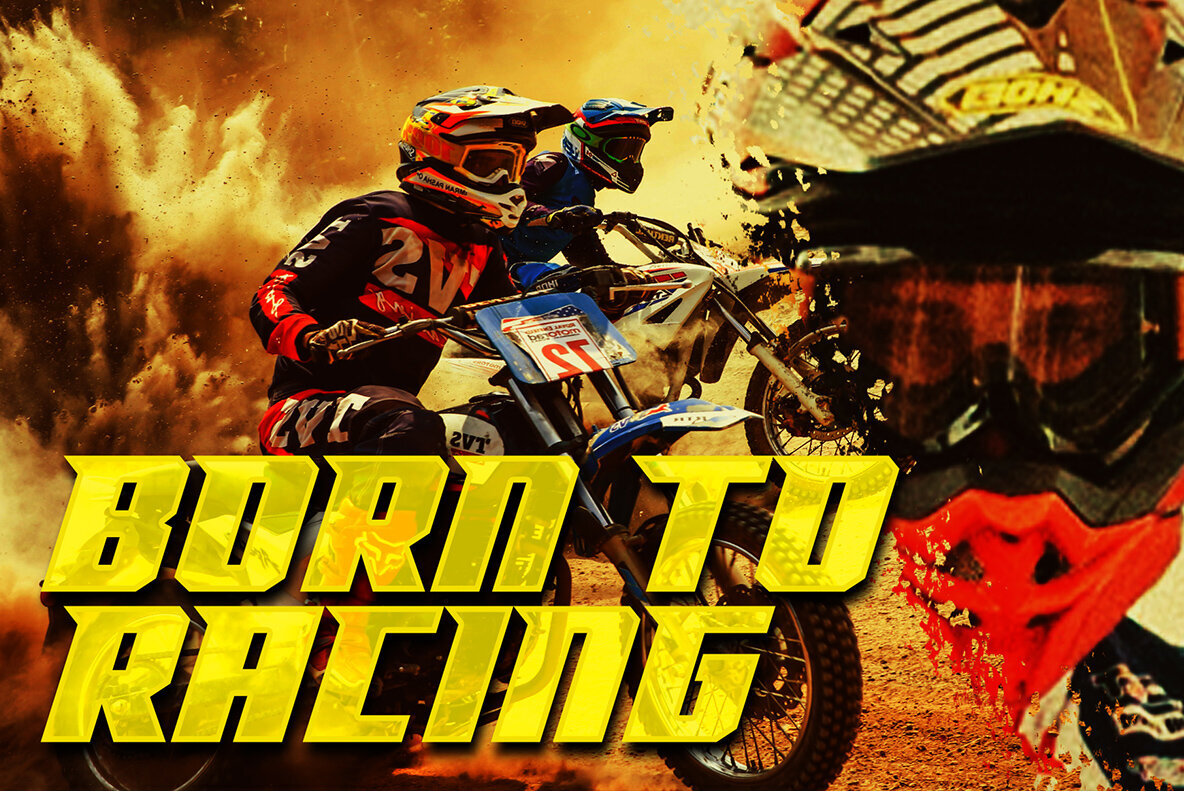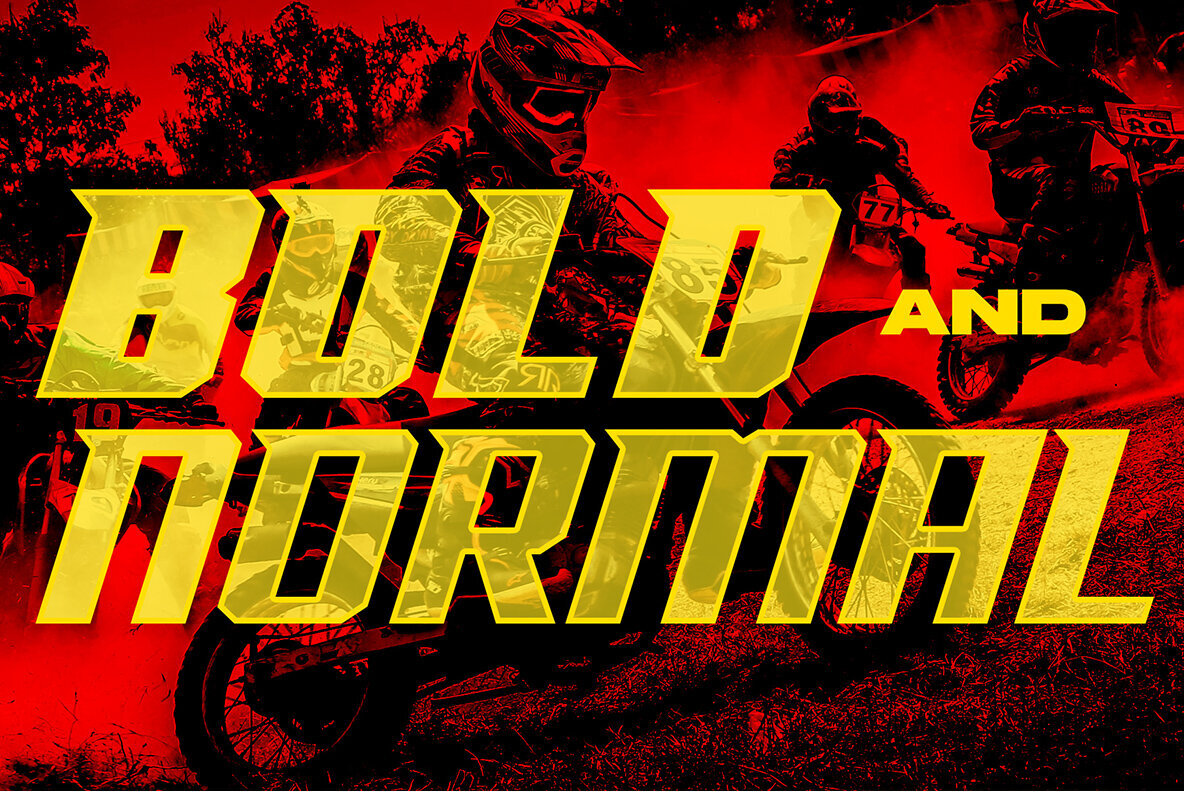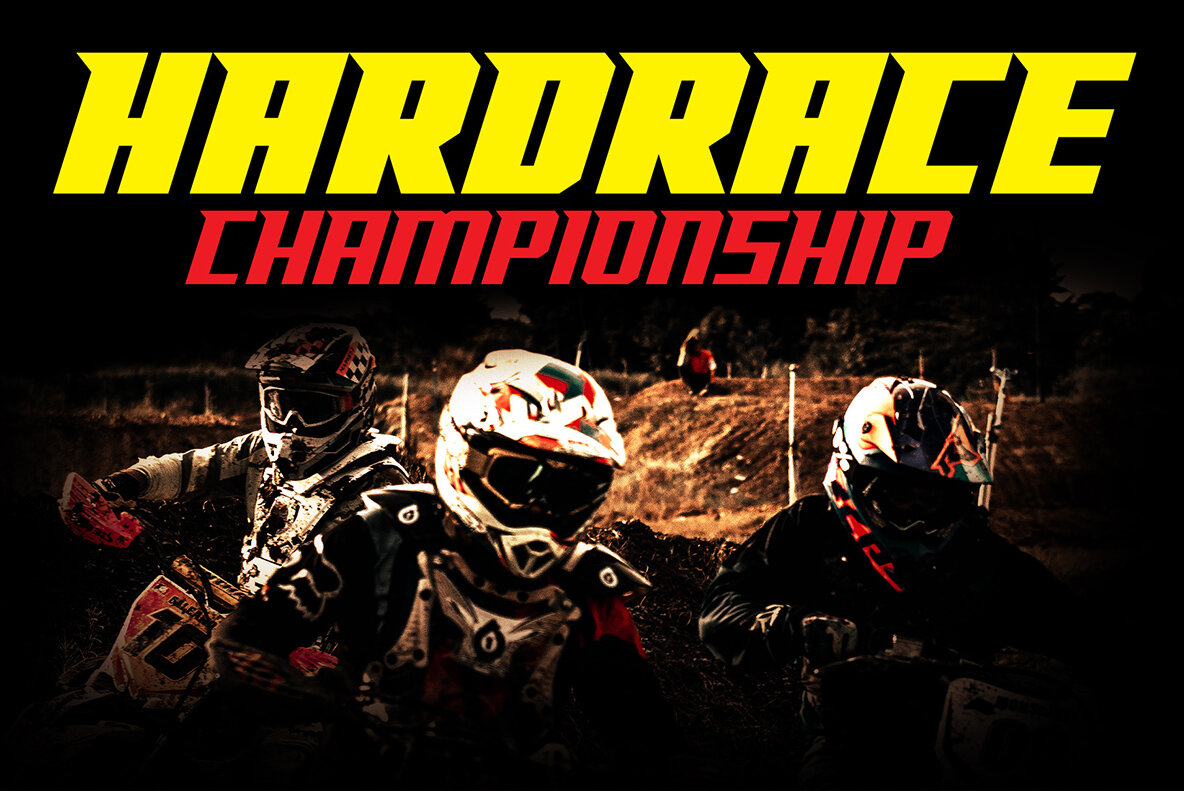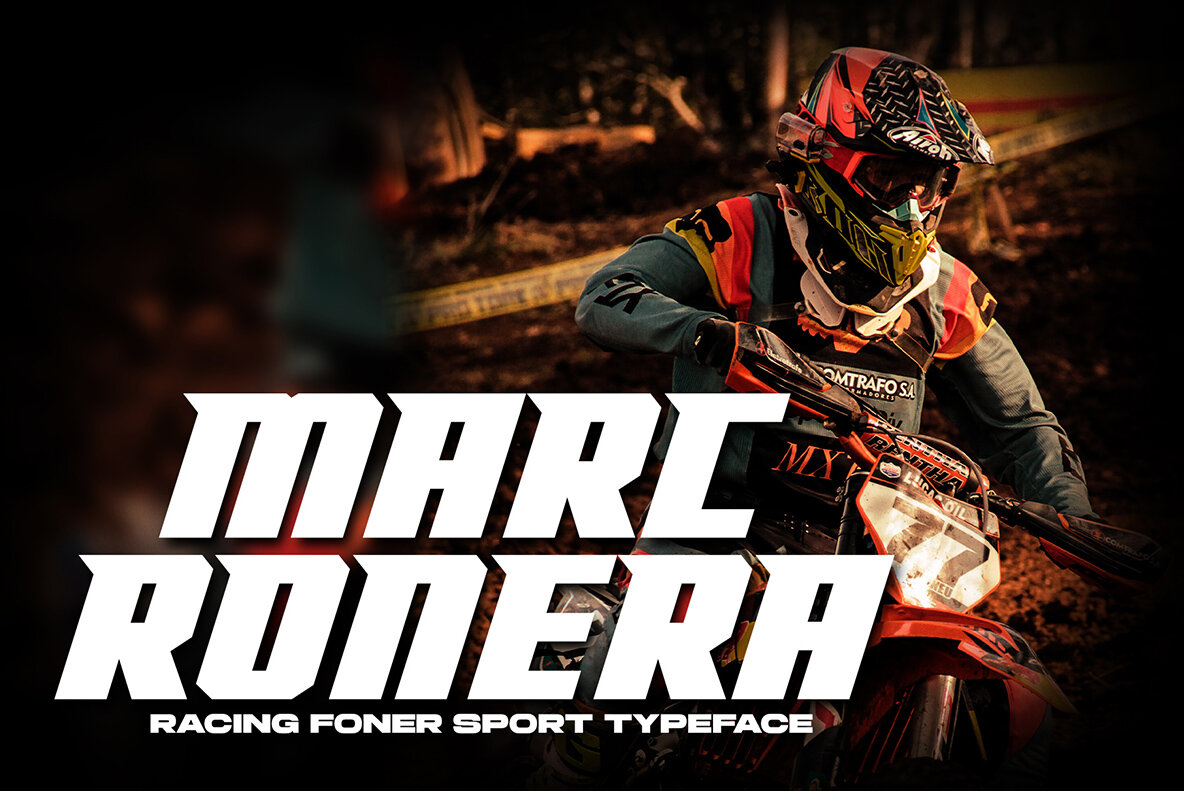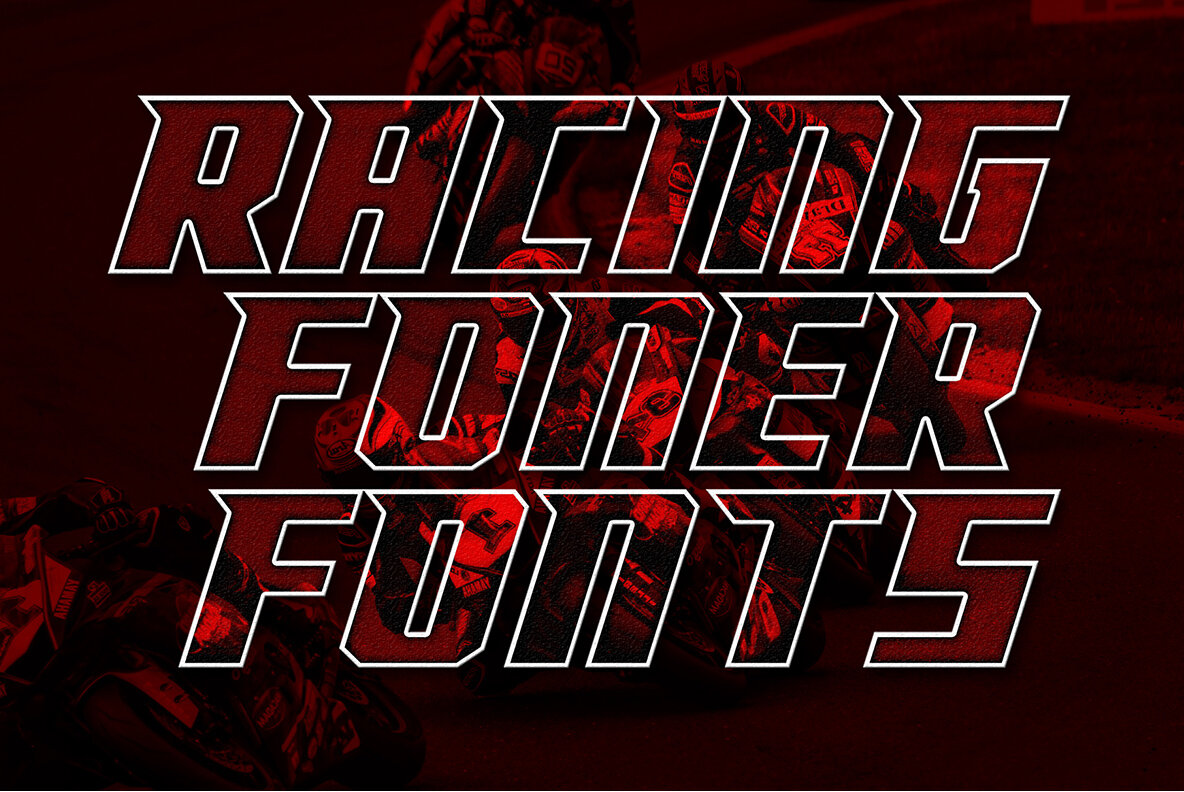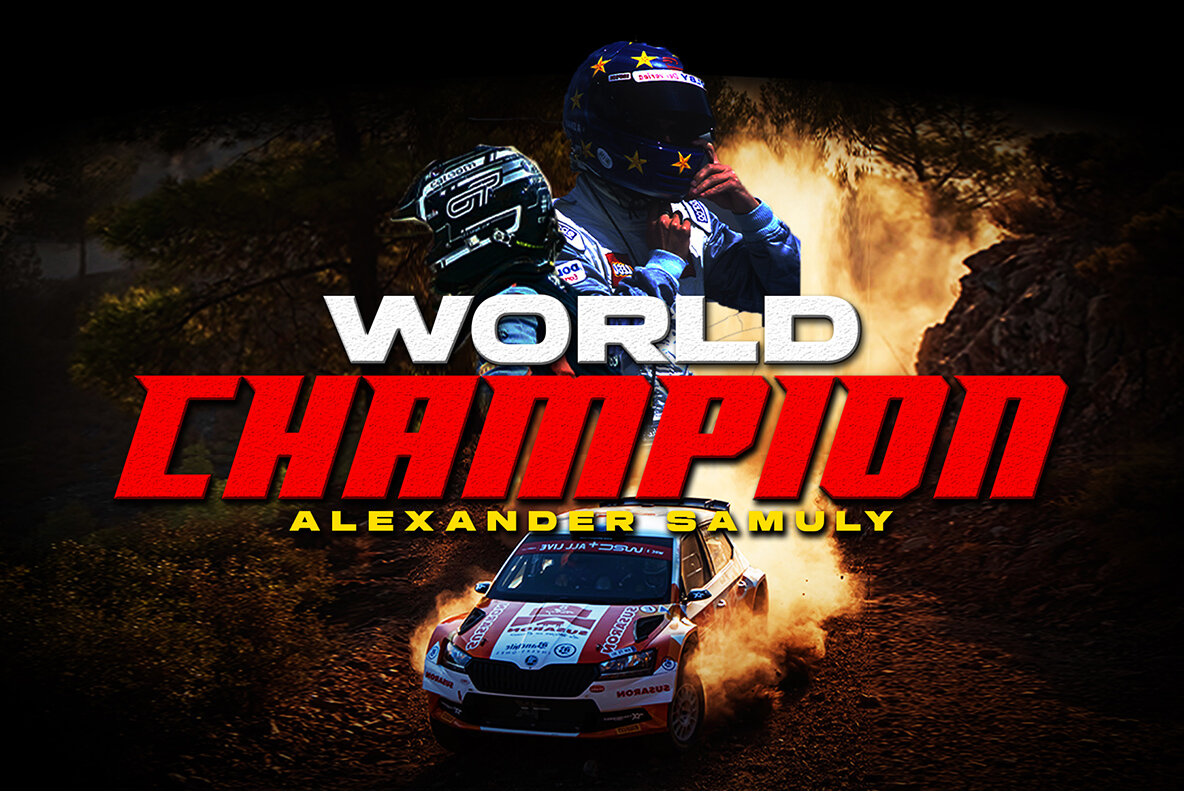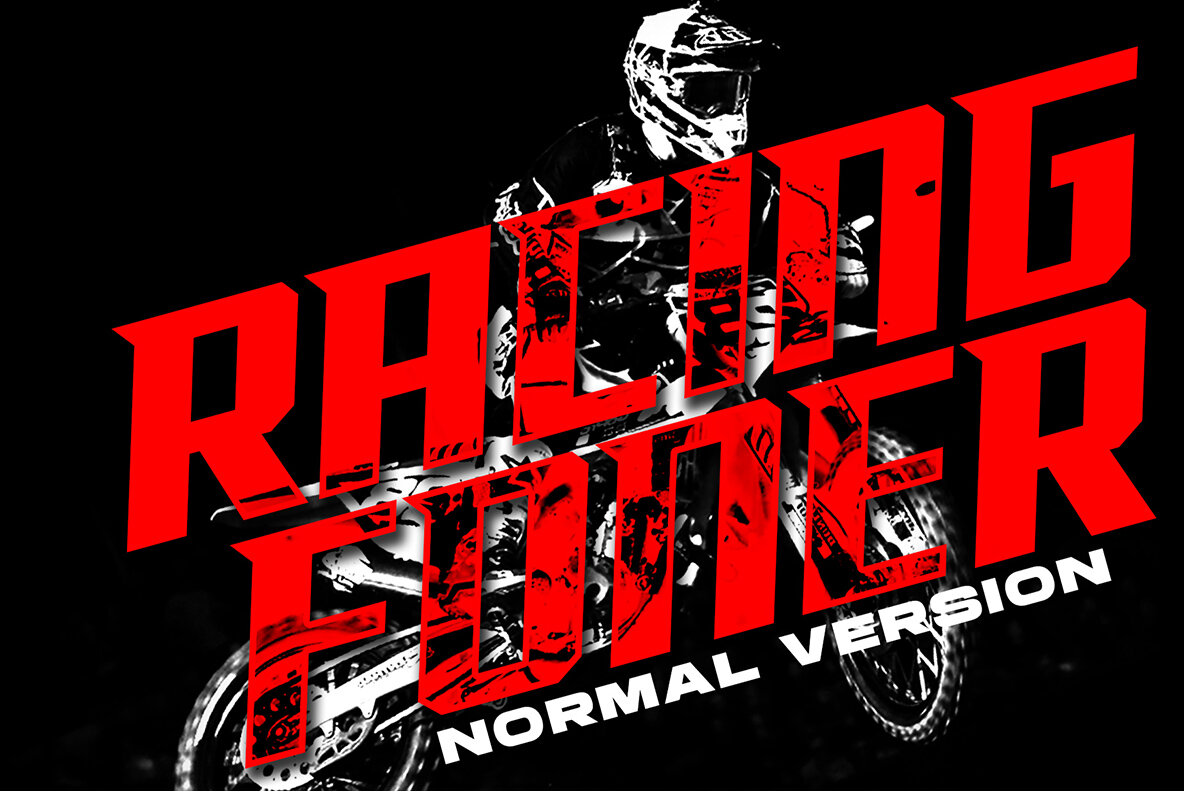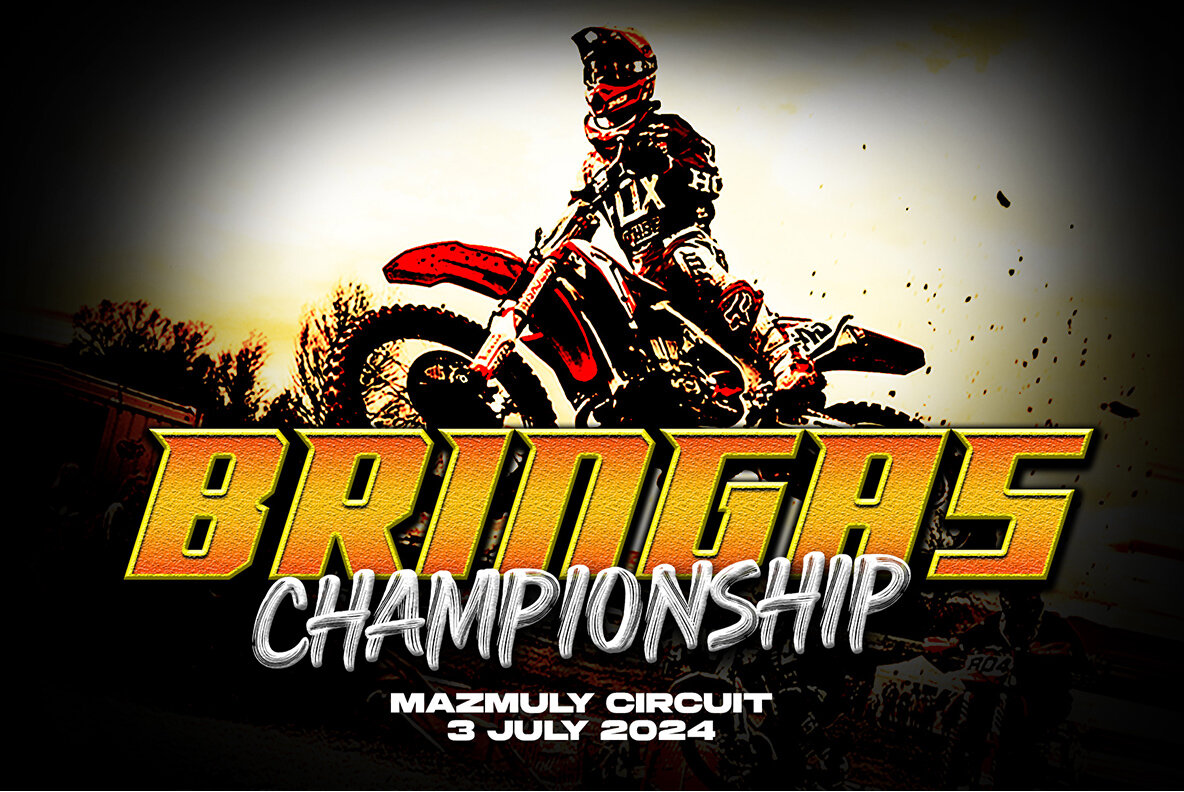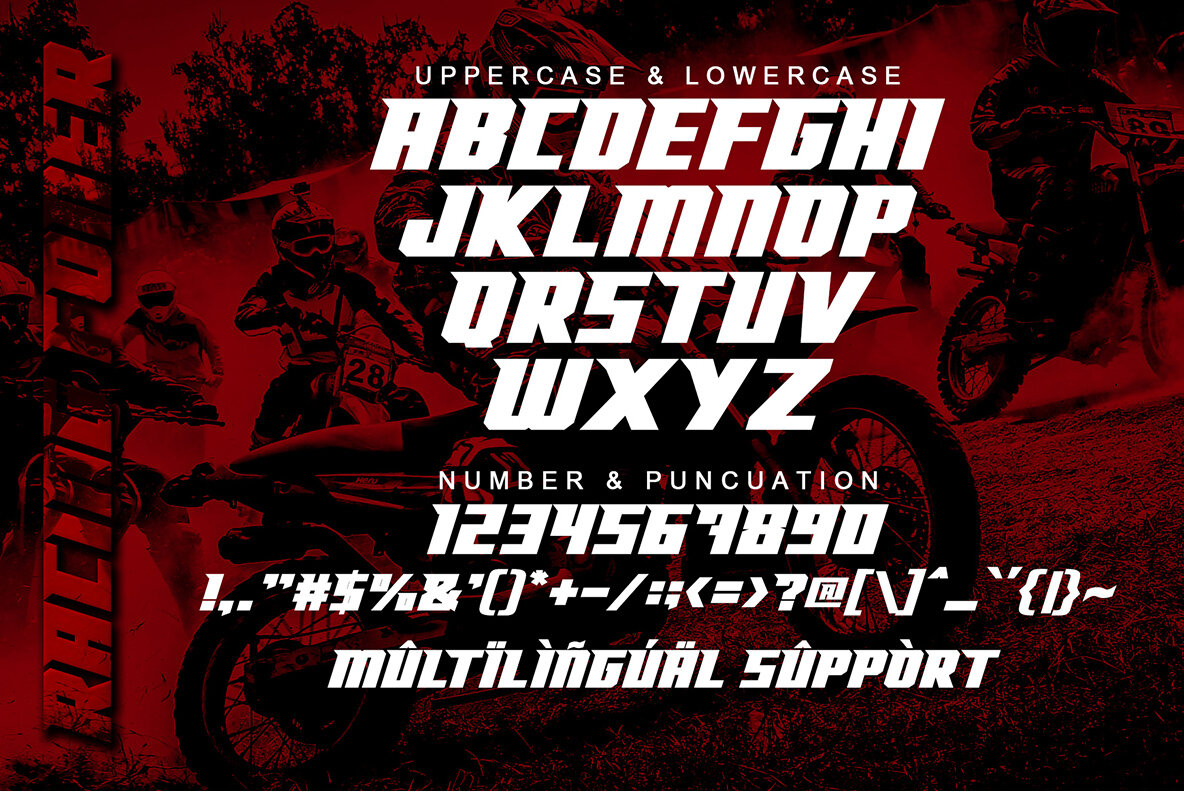
Racing Foner Font
A strong, bold and unique style instantly gives your design power and uniqueness.
This font perfect for racing product logos, racing game covers, sporting events, automotive posters, automotive magazine covers, branding, product designs, labels and other creative projects.
– All Caps
– Numbers & Symbols
– Multilingual support